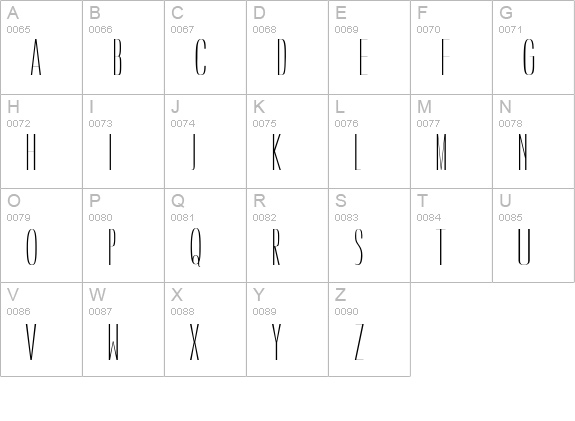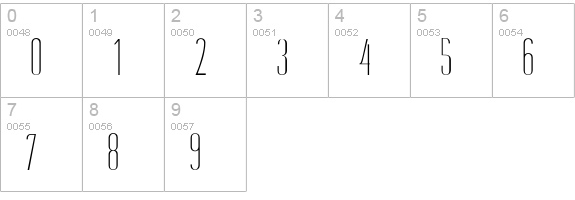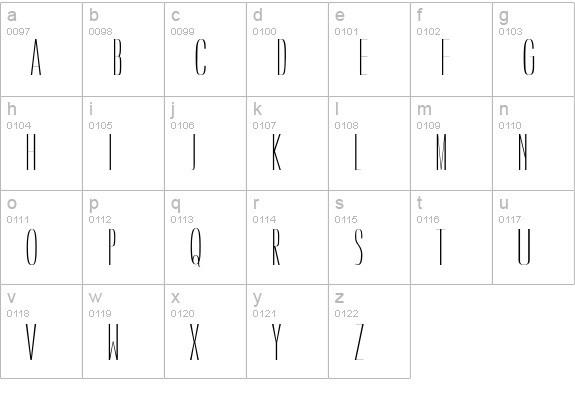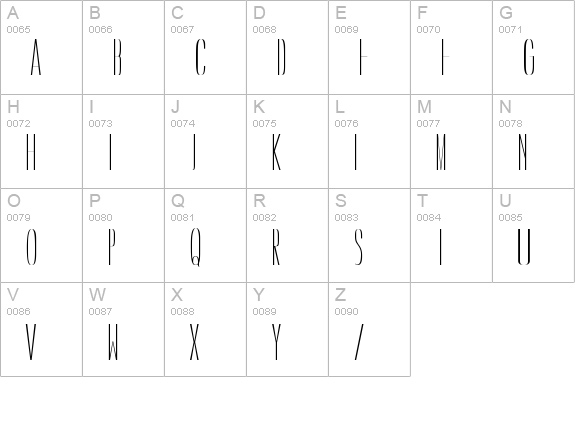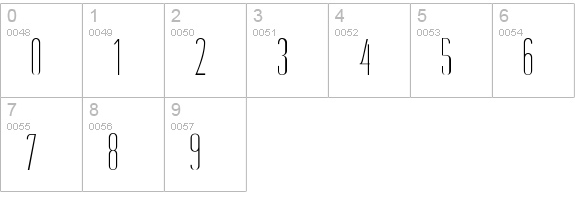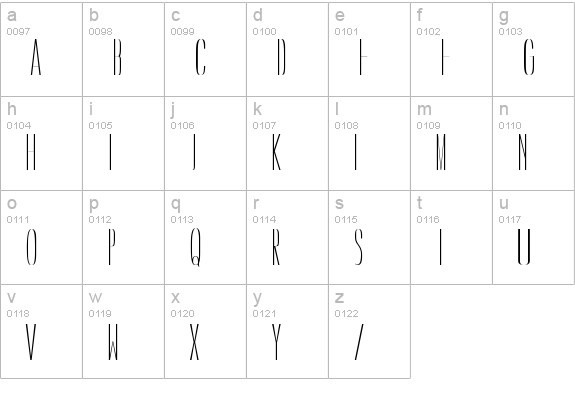
Caledo Light Font Details
Caledo Light is a refined, elegant variant in the Caledo typeface family \xE2\x80\x94 well suited to elegant body text, refined sub-headings, and luxury branding.
Introducing Caledo Light, a stunningly elegant font that effortlessly combines modern sophistication with timeless charm. With its delicate strokes and graceful curves, Caledo Light exudes a sense of refinement and grace that is sure to captivate any audience. This versatile font is perfect for a wide range of design projects, from branding and logos to invitations and editorial layouts. Its clean and legible letterforms make it ideal for both display and body text, ensuring maximum readability without sacrificing style. Caledo Light is a true testament to the artistry of typography. Each character has been meticulously crafted to perfection, resulting in a harmonious balance between elegance and functionality. The subtle variations in stroke weight add depth and character to every letter, creating a truly unique and memorable visual experience. And the best part? Caledo Light is completely free! Yes, you read that right. This exceptional font is freely available to download at FontsMarket.com, the ultimate destination for typography enthusiasts. Now you can elevate your designs without breaking the bank, thanks to the generosity of the font's creators. So whether you're a seasoned designer or just starting out, Caledo Light is the perfect companion for your creative endeavors. Its versatility, beauty, and affordability make it a must-have in any designer's toolkit. Don't miss out on this opportunity to enhance your projects with a font that is equal parts captivating and accessible. Download Caledo Light today at FontsMarket.com and unlock a world of possibilities. Elevate your designs, captivate your audience, and embrace the beauty of typography with this remarkable font.